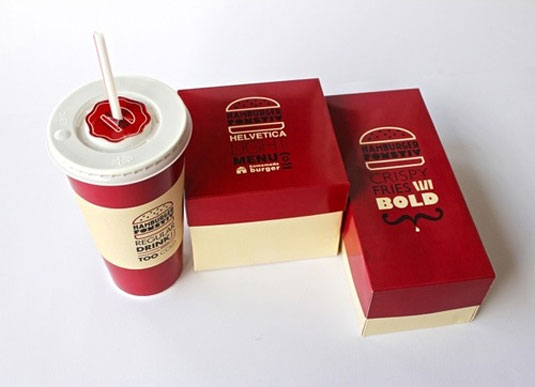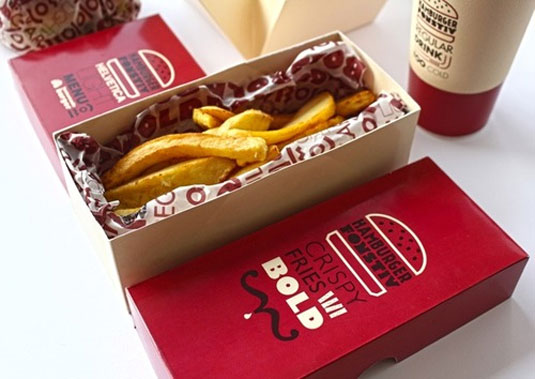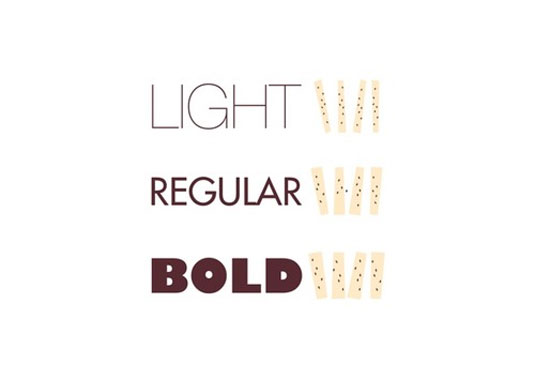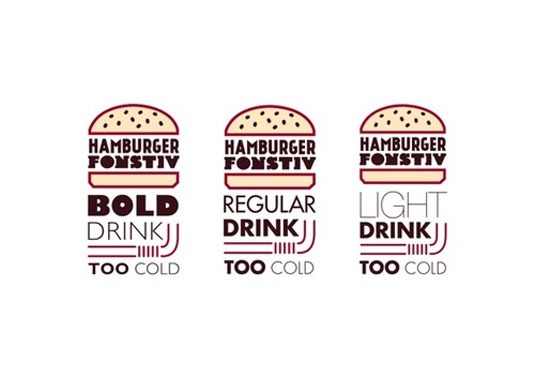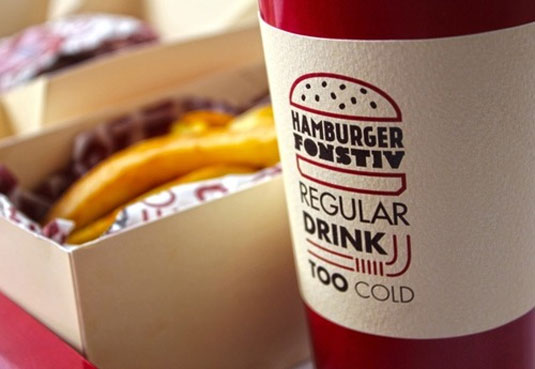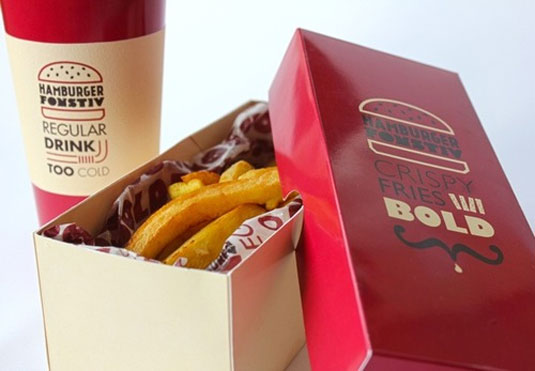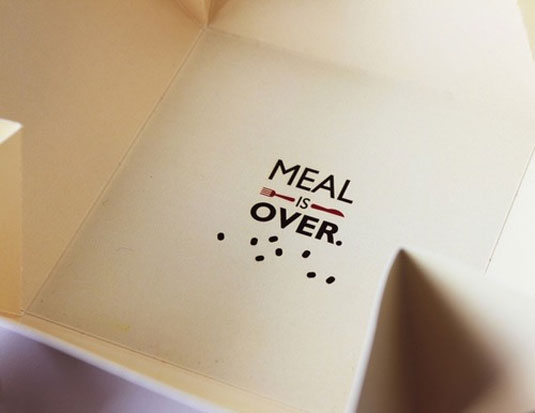
What font is your burger?
Check out this tasty typography based branding, which uses fonts to describe the fast food.
Forget McDonald's or Burger King - this new typography design concept is one of the most sleek and sophisticated offerings we've ever laid our eyes on.
In the project, entitled Hamburgerfonstiv, Turkish designer Burcu Imdat uses fonts such as Futura, Helvetica and Gill Sans to convey the type of food on offer, with the light, regular and bold versions portraying the size of fries, burgers and drinks.
With minimal use of colour and sticking to a simple and elegant execution, we've never seen fast food look so good. A clever and playful mash-up of food art and font families that will have foodies and type lovers inspired.